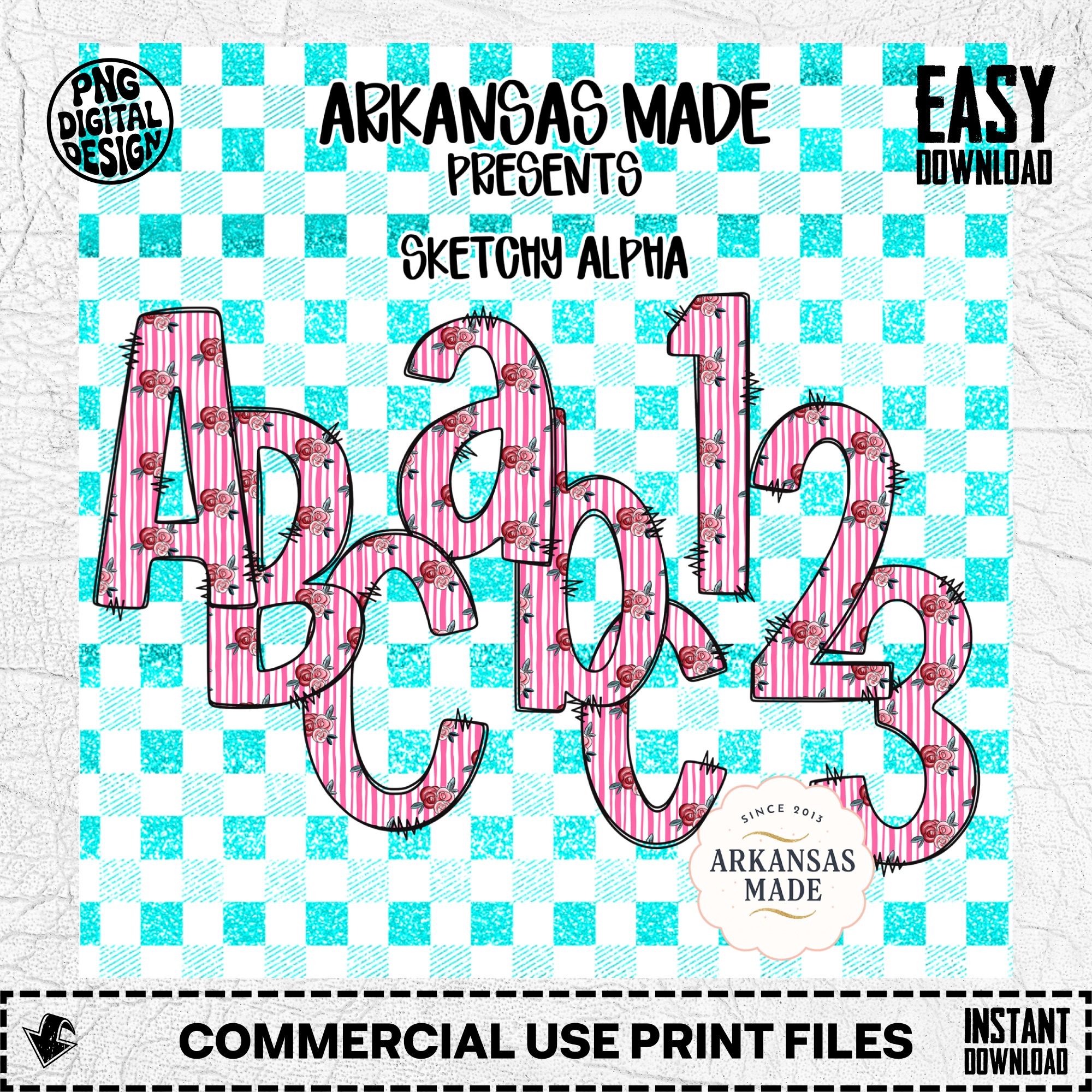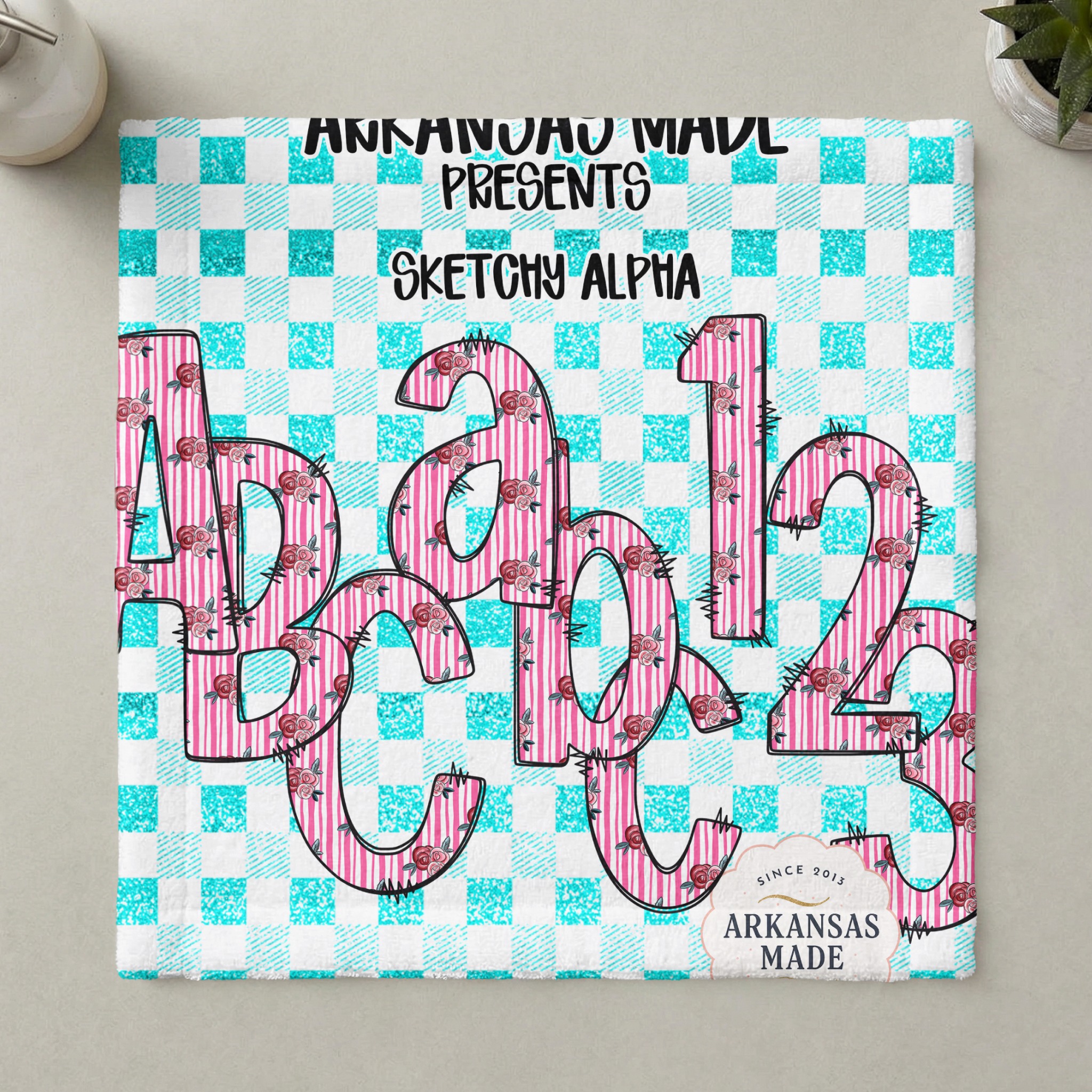
Sketchy Alpha Digital Download Set Pink Floral Stripes | PNG Letters & Numbers | Turquoise Gingham Sublimation Craft Font
Add a charming touch to your projects with this Sketchy Alpha Digital Download Set, featuring pink floral stripes and turquoise gingham. Perfect for sublimation crafts! Embrace the shabby chic aesthetic with these unique PNG letters and numbers, ideal for DIY crafters and small business owners. Create personalized gifts, apparel, or farmhouse decor with this versatile digital alphabet bundle. A perfect resource for scrapbooking, planner designs, and custom sublimation projects.